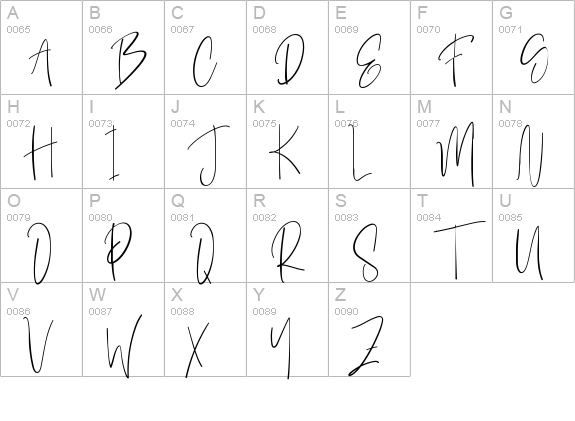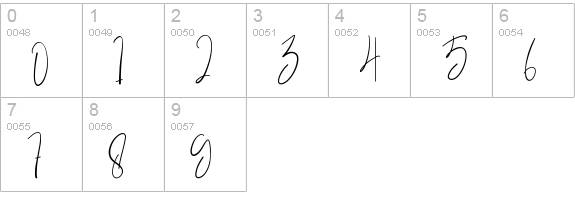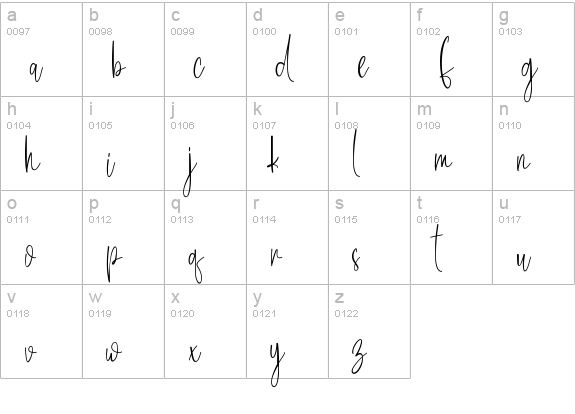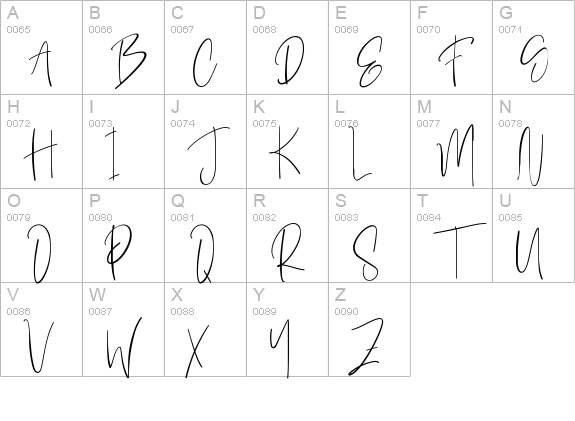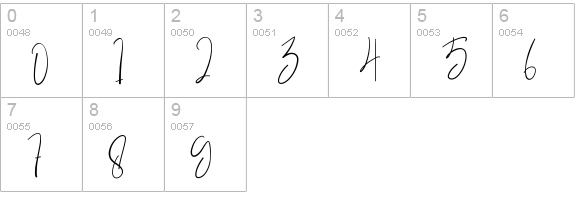
Handwriten Font Details
Handwriten is a free for personal use font in the Script > Handwritten category, designed by scratchones. It has been downloaded 25 times and is available for Windows, Mac and Linux.
Discover the timeless elegance and personal touch of our Handwritten font, a delicate and refined typeface that brings a sense of individuality to any project. With its graceful curves and flowing lines, this font captures the charm of traditional handwriting while maintaining a modern aesthetic.
Whether you are creating invitations, greeting cards, branding materials, or any other design project, our Handwritten font adds a unique and personal touch that sets your work apart. Its versatility allows it to be used for both formal and casual designs, making it a must-have in any designer's toolkit.